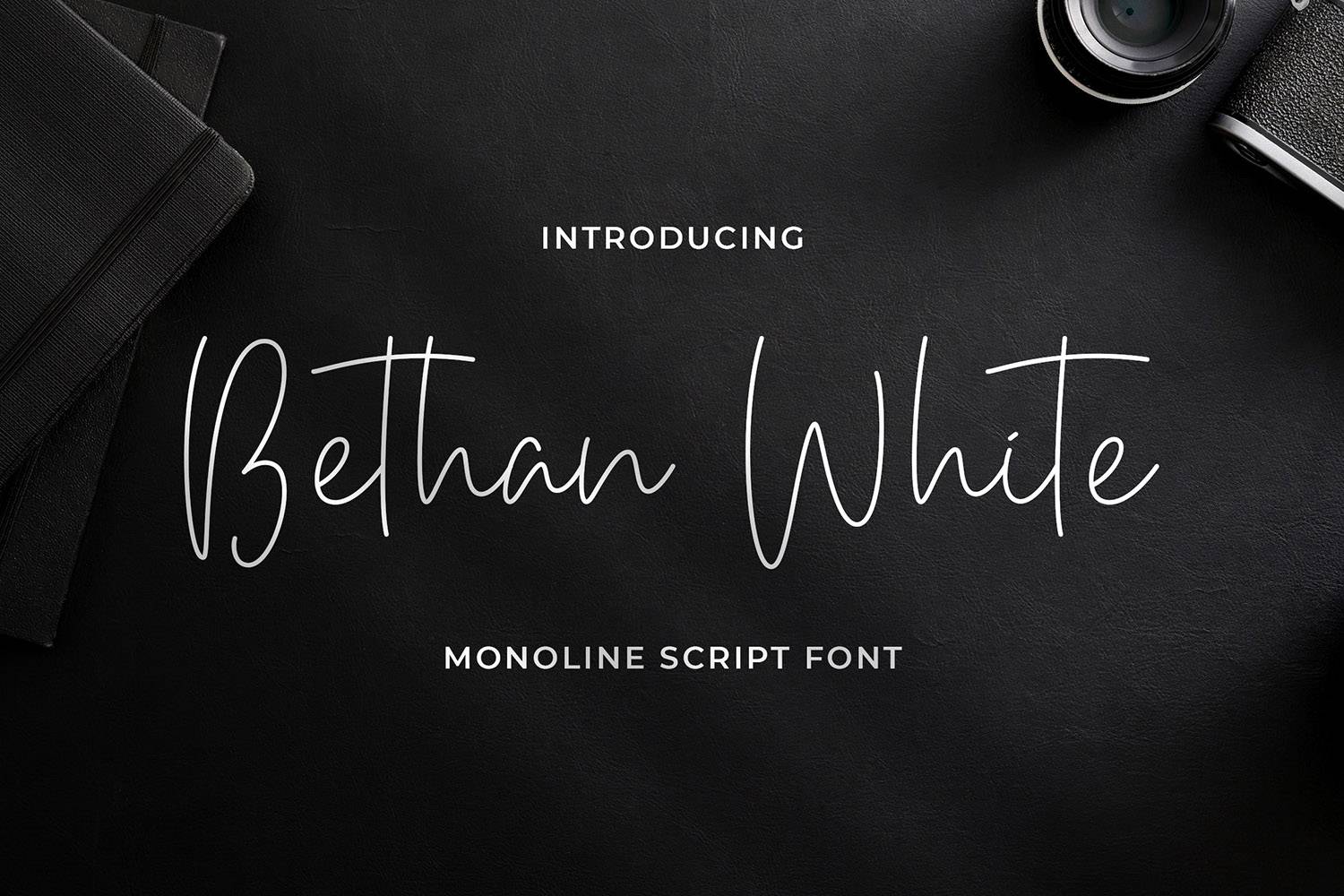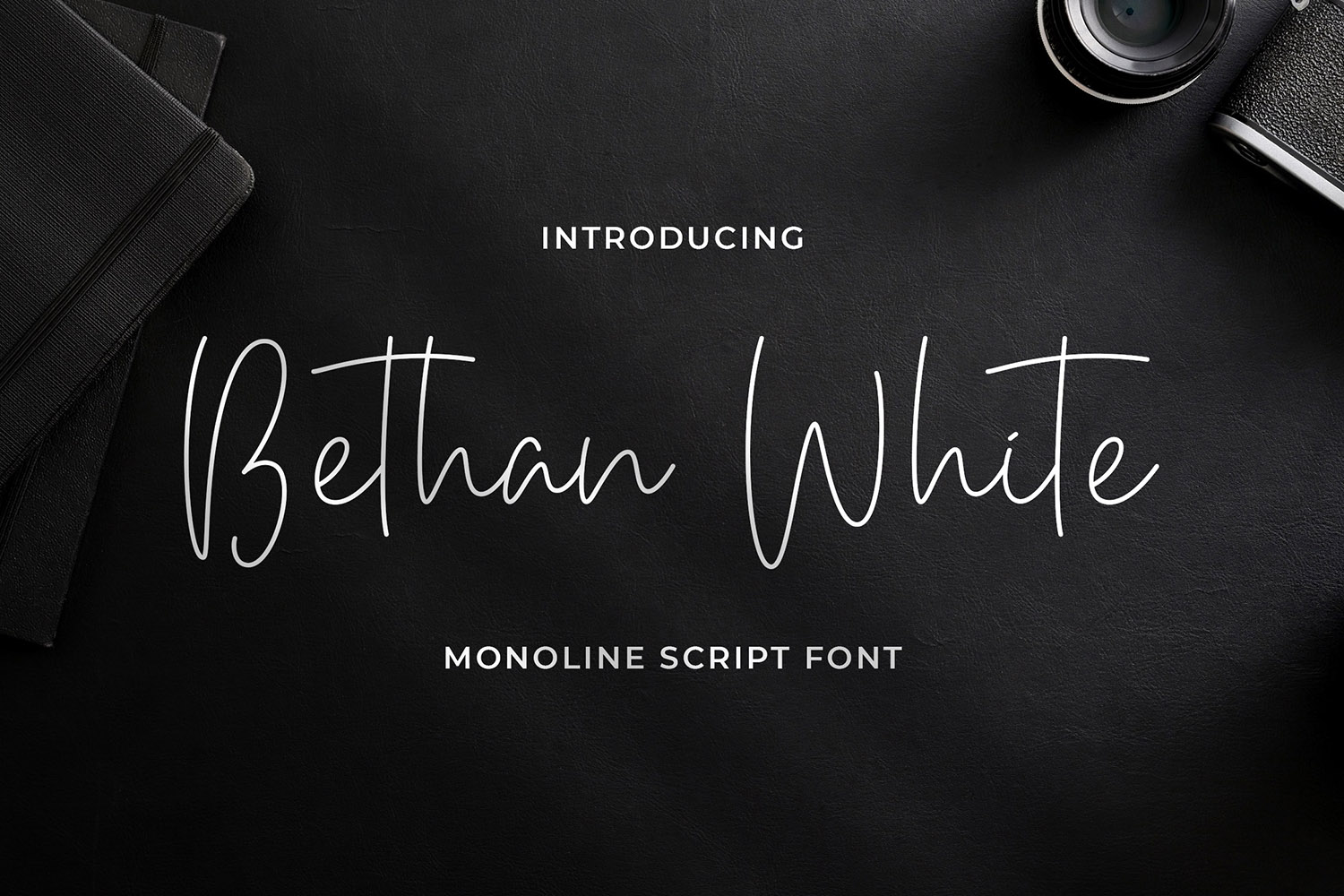
Bethan White is a delicate, handwritten script font with thin, airy strokes and an elegant, casual feel. Its tall, slender letterforms and gentle curves create a friendly, personal touch ideal for invitations, branding, and lifestyle projects that seek to convey warmth and sophistication. This font works beautifully in creative and feminine contexts where a light, graceful appearance is desired.
Bethan White Font
About Bethan White Font